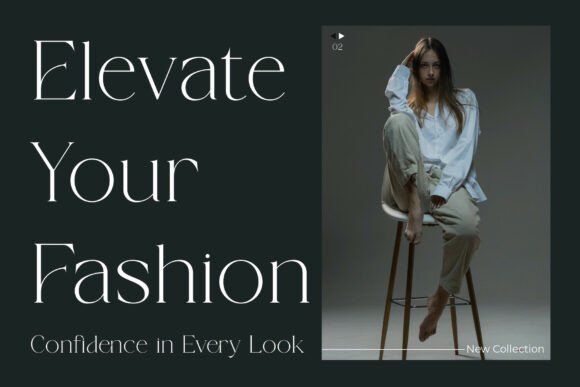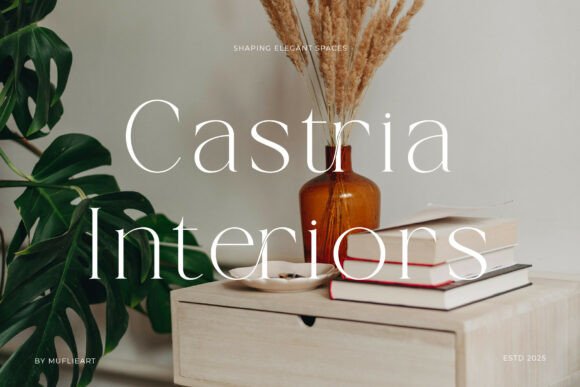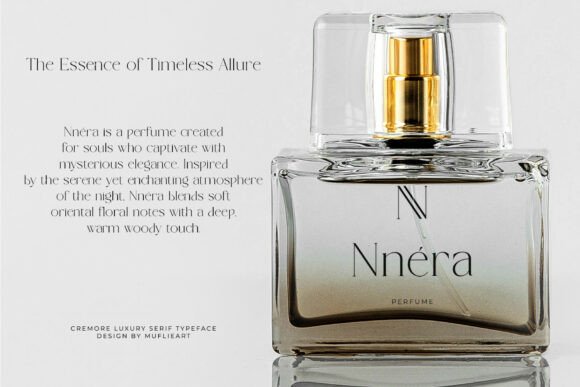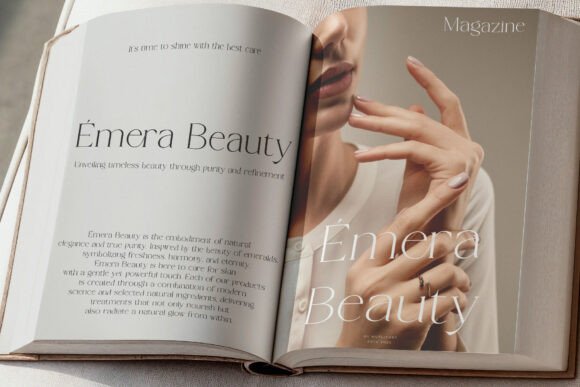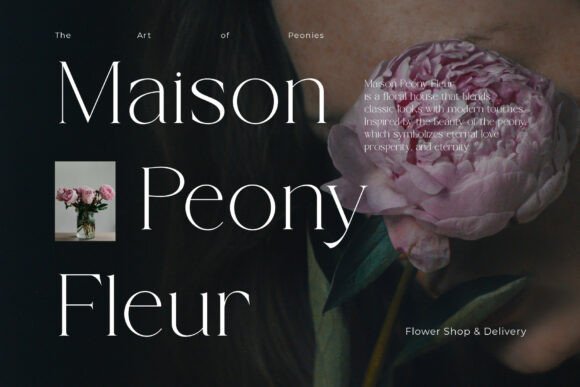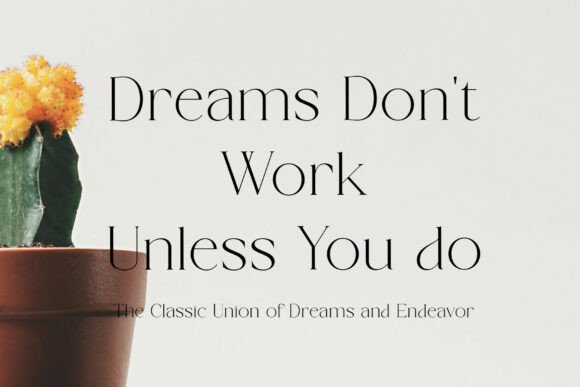
Introducing Cremore Font: Elevate Your Design with Luxury and Sophistication
In the world of typography, few fonts manage to strike a balance between minimalist elegance and avant-garde flair. Cremore, a luxury serif typeface, achieves this delicate balance with remarkable precision. Designed to exude refined sophistication, Cremore is the perfect choice for designers and crafters seeking to elevate their visual identity with a touch of high-end luxury.
The Distinctive Characteristics of Cremore Font
Cremore’s unique character is rooted in its high-contrast stems and razor-sharp hairlines, which radiate a polished, editorial energy. The font’s fluid, sweeping arcs and “stencil” apertures provide a bespoke, architectural prestige to every word, making it an extraordinary choice for high-end interior design branding, boutique hotel logos, luxury skincare packaging, and cinematic headers.
Unyielding Professional Authority and Polished Artisanal Beauty
Cremore delivers a sense of unyielding professional authority and polished artisanal beauty to your visual identity, ensuring your message feels both legendary and timeless. Whether you’re a designer, craftsperson, or business owner, this luxury serif typeface will help you establish a strong brand presence that commands attention and respect.
Applications for Cremore Font
Cremore’s versatility makes it suitable for a wide range of applications, including:
- High-end interior design branding: Add a touch of sophistication to your brand identity with Cremore’s elegant, refined design.
- Boutique hotel logos: Create a lasting impression with Cremore’s luxurious, high-end feel.
- Luxury skincare packaging: Elevate your product packaging with Cremore’s bespoke, architectural prestige.
- Cinematic headers: Make a bold statement with Cremore’s razor-sharp hairlines and fluid, sweeping arcs.
The Benefits of Using Cremore Font
By incorporating Cremore into your design, you’ll enjoy several benefits, including:
- Enhanced credibility: Cremore’s luxurious, high-end design will help establish your brand as a credible, professional authority in your industry.
- Unique visual identity: Cremore’s distinctive character will help your brand stand out from the competition and leave a lasting impression on your audience.
- Timeless appeal: Cremore’s classic, elegant design ensures that your visual identity will remain relevant and stylish for years to come.
Design Tips for Working with Cremore Font
To get the most out of Cremore, consider the following design tips:
- Use Cremore in headlines and titles: Cremore’s high-contrast stems and razor-sharp hairlines make it perfect for headlines and titles.
- Pair Cremore with complementary fonts: Combine Cremore with sans-serif fonts or script fonts to create a visually appealing contrast.
- Experiment with font sizes and weights: Cremore’s versatility allows you to experiment with different font sizes and weights to create a unique visual hierarchy.
In conclusion, Cremore Font is a luxury serif typeface that offers a unique blend of minimalist elegance and avant-garde flair. With its high-contrast stems, razor-sharp hairlines, and fluid, sweeping arcs, Cremore is the perfect choice for designers and crafters seeking to elevate their visual identity with a touch of high-end luxury. Whether you’re working on high-end interior design branding, boutique hotel logos, luxury skincare packaging, or cinematic headers, Cremore is sure to deliver a sense of unyielding professional authority and polished artisanal beauty to your design.